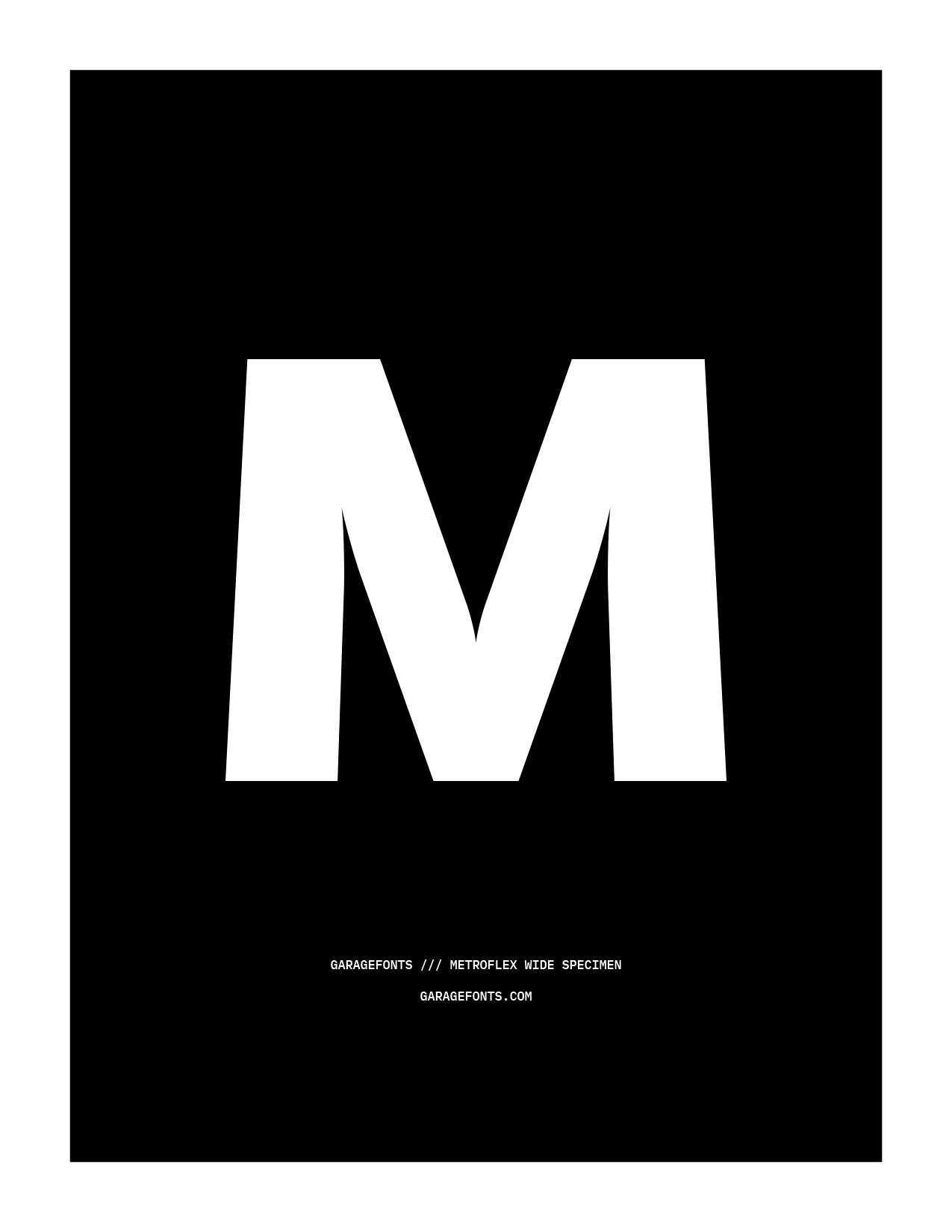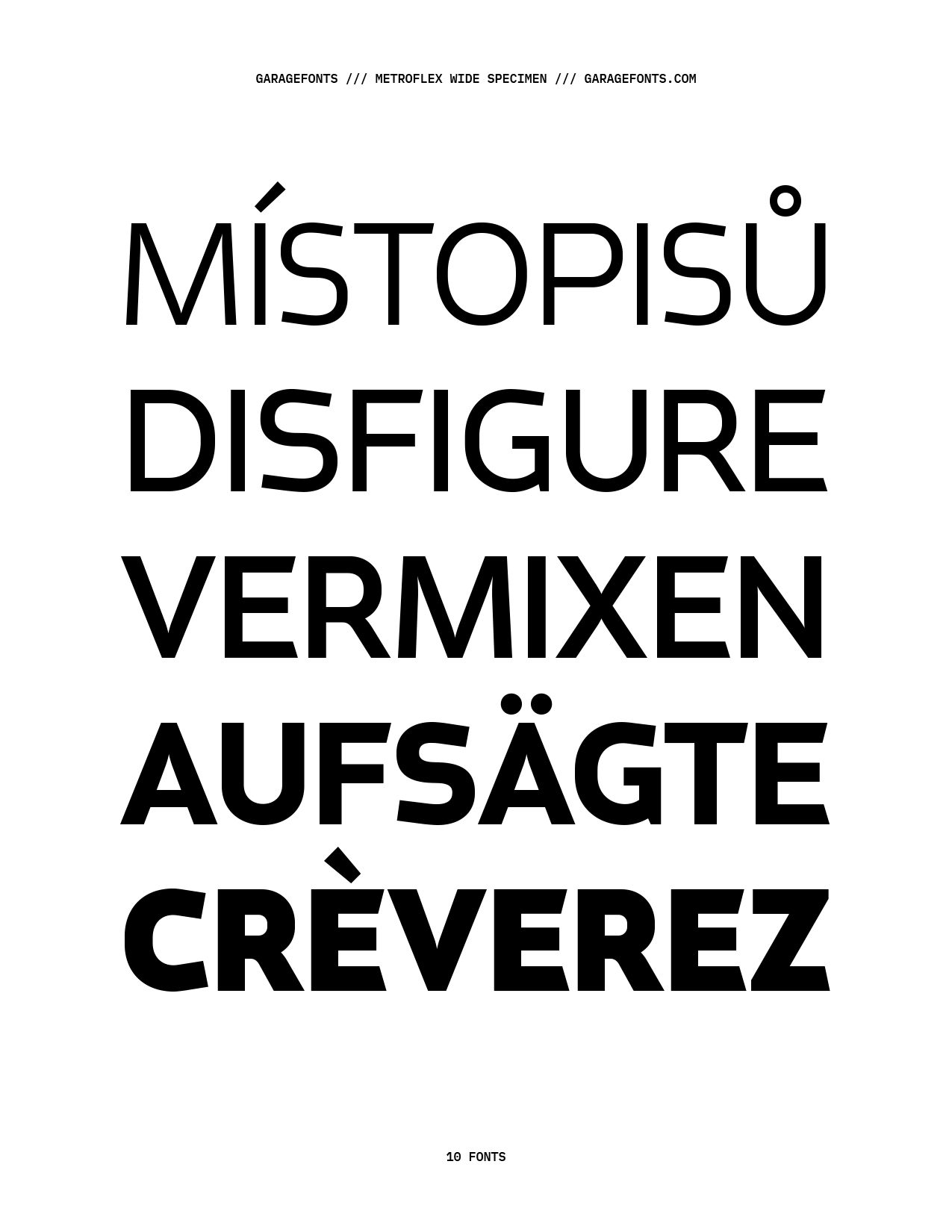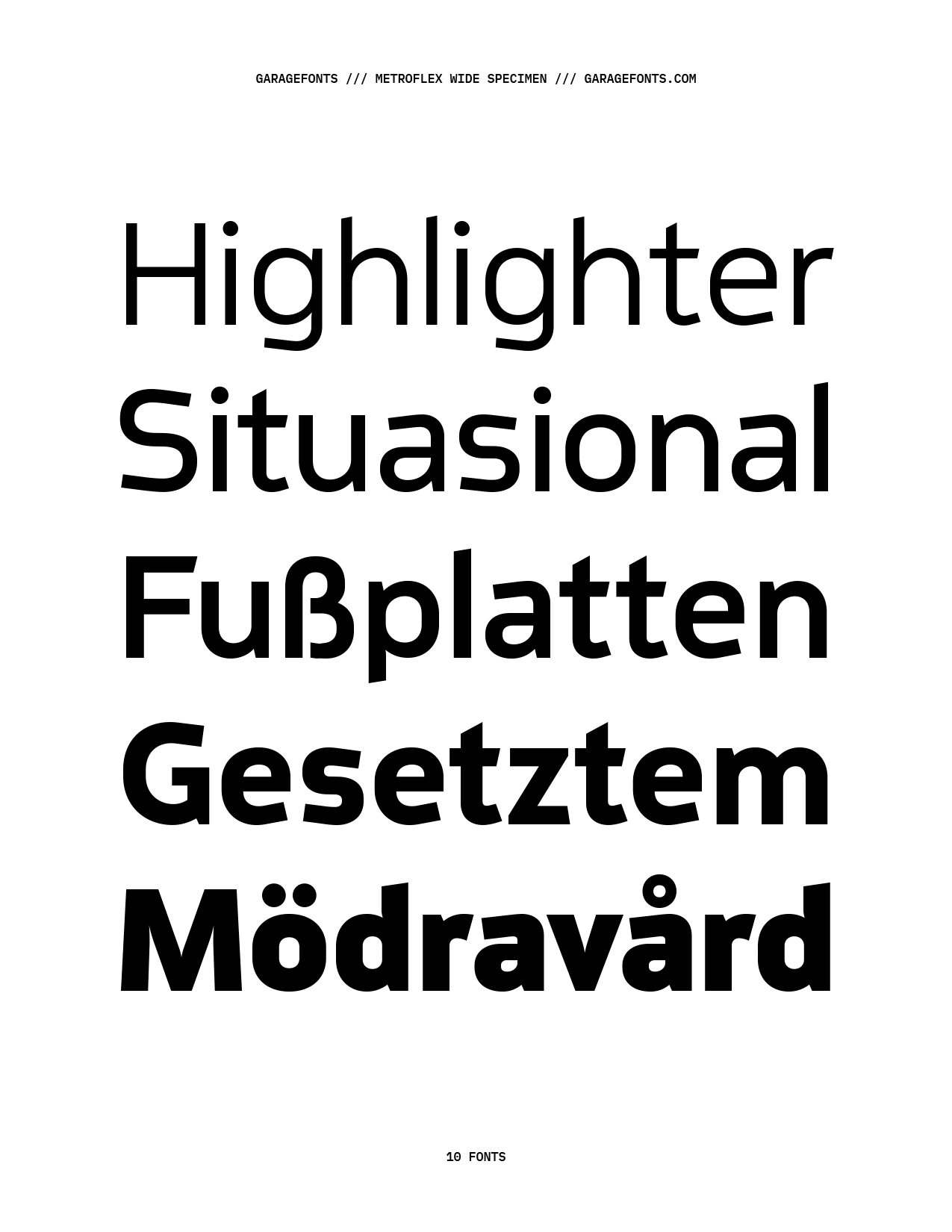
Metroflex Wide
Metroflex Wide Info
Metroflex Wide is an urban, multi purpose typeface, engineered like a machine. The design was inspired by the Fritz Lang’s Metropolis, a silent film created in 1926. The idea was to design a standard type system that fits into the world of Lang’s Metropolis. Metroflex Narrow features original ideas and solutions that have roots in the present while inspired by past designs such as Univers, Futura, Steile Futura and DIN.